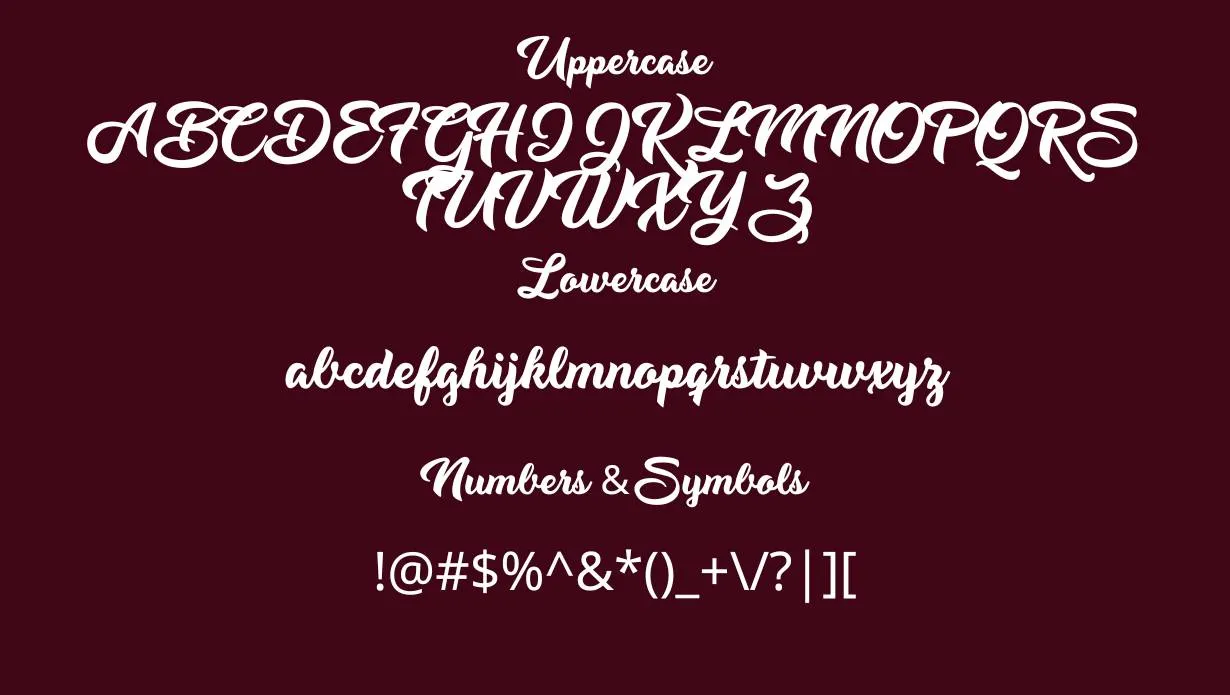
The Dirty Queen Font is a fun and creative typeface commonly utilized in projects associated with children, playful items, and endeavors that strive to evoke a feeling of joy and innovation.
| Name | Dirty Queen Font |
| Designer | Billy Argel Fonts |
The font’s unique and quirky style adds an element of joy and personality to your designs.